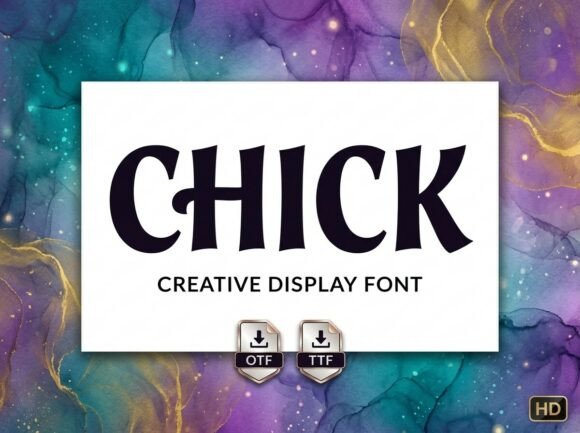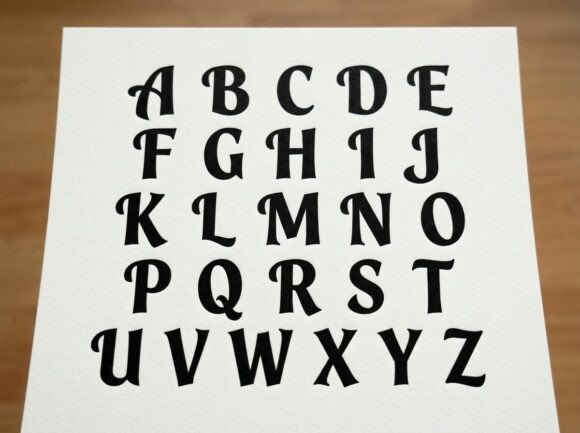
Introducing Chick Font: The Perfect Blend of Playfulness and Pastoral Charm
In the world of typography, few fonts manage to capture the essence of playfulness and pastoral charm as effortlessly as Chick. This delightful display typeface is designed to evoke a sense of whimsy and friendliness, making it an ideal choice for designers and crafters looking to add a touch of personality to their projects. With its plump, hand-drawn letterforms and rhythmic, organic curves, Chick is the perfect blend of farmhouse aesthetics and modern children’s branding.
The Unique Characteristics of Chick Font
So, what sets Chick apart from other fonts? For starters, its unique structural weight strikes the perfect balance between playfulness and sophistication. The font’s hand-drawn letterforms are characterized by smooth, flowing curves that give it a warm and approachable feel. This makes Chick an excellent choice for projects that require a friendly and inviting tone, such as independent artisanal food identities, boutique nursery logos, and creative spring festival posters.
Perfect for Crafty and Cozy Branding
Chick is more than just a font – it’s a design solution that can elevate your brand’s personality and aesthetic. Its warm and friendly vibe makes it perfect for crafty and cozy branding, including social media headers, packaging design, and more. With Chick, you can create high-impact designs that resonate with your audience and leave a lasting impression.
Use Cases for Chick Font
So, where can you use Chick to make an impact? Here are some ideas to get you started:
- Independent Artisanal Food Identities: Chick is a natural fit for food brands that want to convey a sense of homemade goodness and artisanal quality.
- Boutique Nursery Logos: The font’s playful and whimsical feel makes it perfect for nursery logos that need to be both fun and sophisticated.
- Creative Spring Festival Posters: Chick’s bright and cheerful personality is ideal for spring festival posters that need to capture the essence of the season.
- Social Media Headers: Use Chick to create eye-catching social media headers that showcase your brand’s personality and style.
Why Choose Chick Font?
With so many fonts to choose from, why should you choose Chick? Here are just a few reasons:
- Unique Personality: Chick has a unique personality that sets it apart from other fonts.
- Versatility: The font is versatile and can be used for a wide range of projects, from branding and packaging to posters and social media headers.
- Easy to Read: Despite its playful feel, Chick is easy to read and can be used for both headlines and body copy.
In conclusion, Chick is a charming display typeface that captures the essence of playfulness and pastoral charm. With its unique characteristics, versatility, and warm personality, it’s the perfect choice for designers and crafters looking to add a touch of personality to their projects. Whether you’re creating a brand identity, designing a poster, or crafting a social media header, Chick is the perfect font to help you hatch something special.